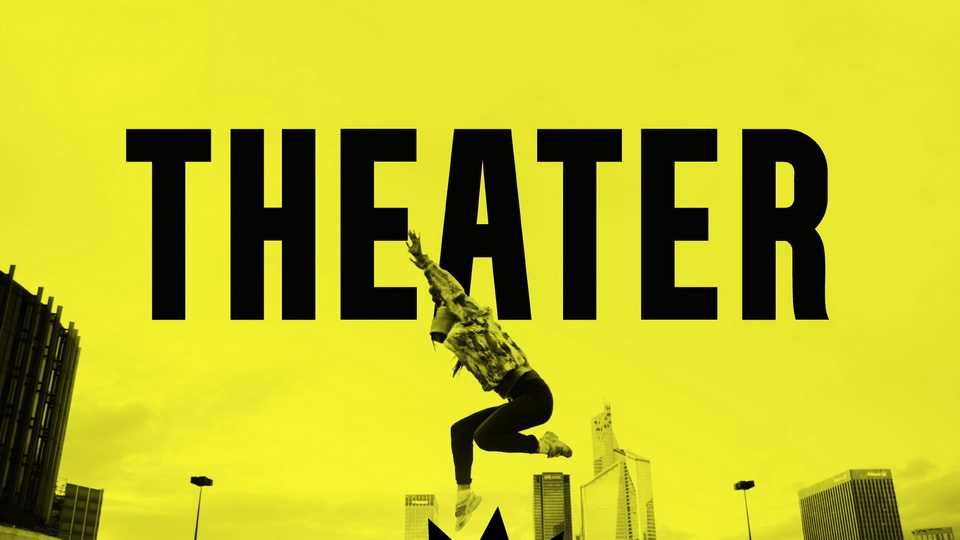
Download Theater font, a simple condensed sans serif typeface designed to be used mostly as a display font in posters and social media. Theater has a bold style that is easy to read, perfect for grabbing attention.